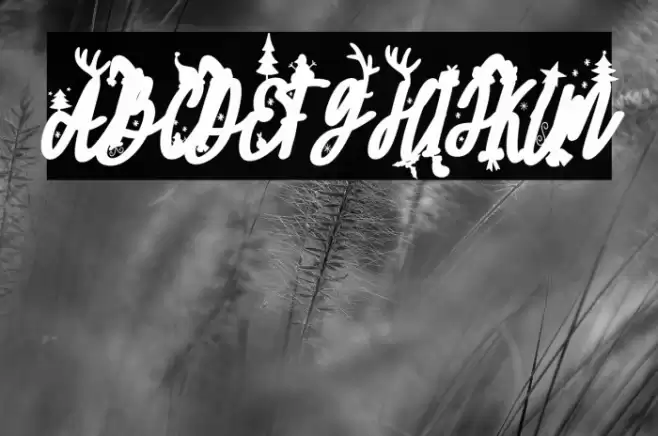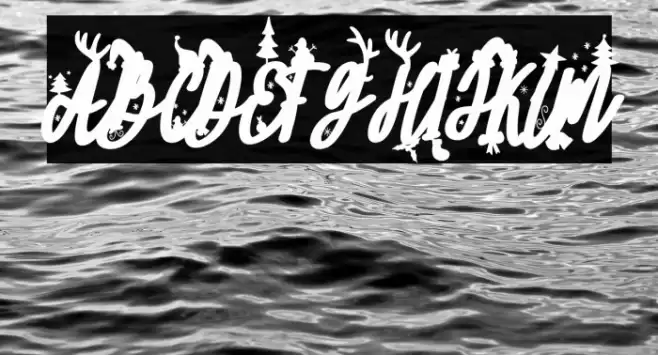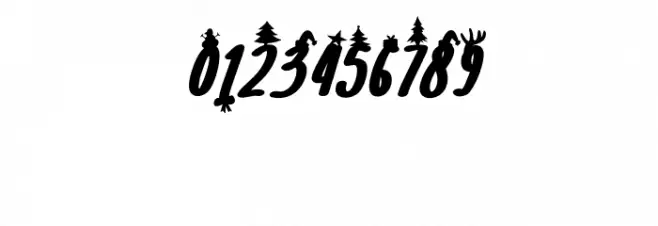
SantaFREE Font
SantaFREE Description
This decorative font features playful and festive elements, incorporating holiday-themed motifs such as antlers and Christmas trees into the letterforms. The characters are bold and dynamic, with a script-like flow that adds a whimsical touch. The uppercase and lowercase letters maintain a consistent style, with embellishments that enhance the holiday spirit. The numbers and special characters are similarly adorned, making this font ideal for seasonal designs.
- Proposed Projects: Perfect for holiday cards, festive invitations, seasonal posters, and Christmas-themed branding.
- Use Case: Headlines, Logos, Seasonal Designs